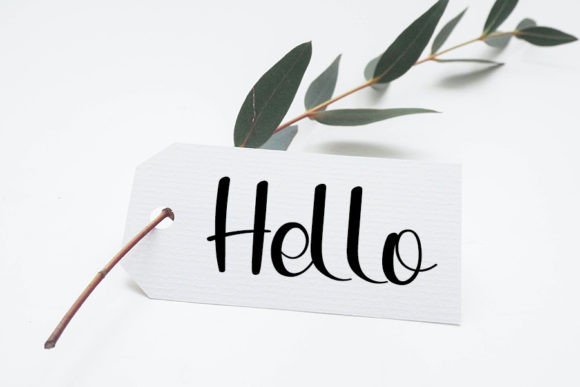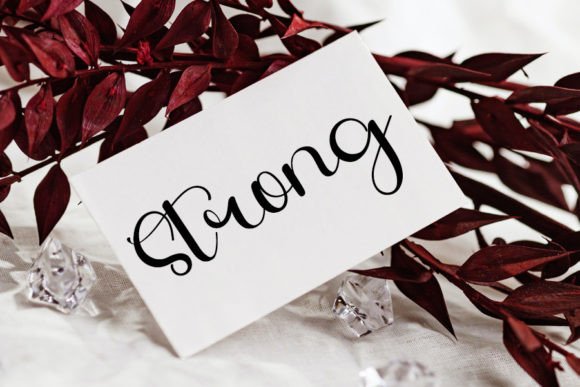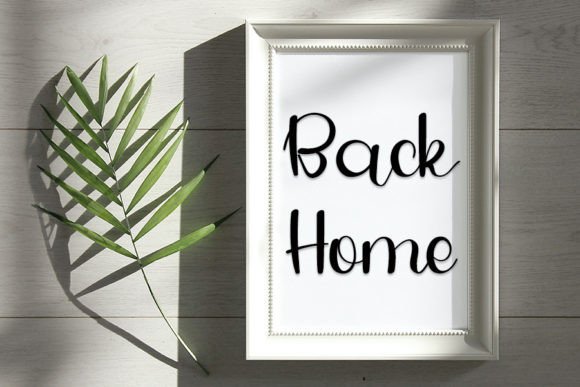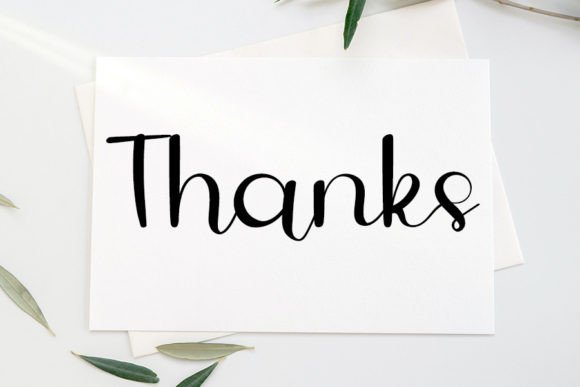
Introducing Handmade Font: Elevate Your Designs with Elegance and Timelessness
Are you on the lookout for a font that adds a touch of sophistication and elegance to your designs? Look no further than the Handmade Font, a beautiful handwritten font that is sure to capture your heart. With its incredibly distinct and timeless style, this font is perfect for designers and crafters who want to create spectacular designs that stand out from the crowd.
The Beauty of Handmade Font
Handmade Font is a neat and beautiful handwritten font that exudes an elegant touch. Its unique and refined style makes it an ideal choice for a wide range of projects, from branding and advertising to packaging and digital media. Whether you’re creating a logo, a poster, or a social media graphic, this font is sure to add a touch of sophistication and glamour to your design.
What Makes Handmade Font So Special?
So, what sets Handmade Font apart from other fonts? Here are a few features that make it truly special:
- Unique and Distinct Style: Handmade Font has an incredibly distinct and timeless style that is sure to make your designs stand out from the crowd.
- Elegant Touch: This font has an elegant touch that adds a touch of sophistication and glamour to any design.
- Versatile: Handmade Font is perfect for a wide range of projects, from branding and advertising to packaging and digital media.
- Handwritten: This font is a beautiful handwritten font that adds a personal touch to any design.
Why Designers and Crafters Love Handmade Font
Designers and crafters love Handmade Font for many reasons. Here are a few:
In conclusion, Handmade Font is a beautiful and elegant handwritten font that is perfect for designers and crafters who want to create spectacular designs. With its incredibly distinct and timeless style, this font is sure to add a touch of sophistication and glamour to any design. Whether you’re creating a logo, a poster, or a social media graphic, Handmade Font is an excellent choice. So why wait? Fall in love with Handmade Font today and elevate your designs to the next level!